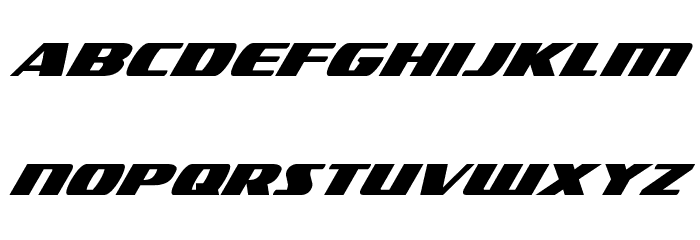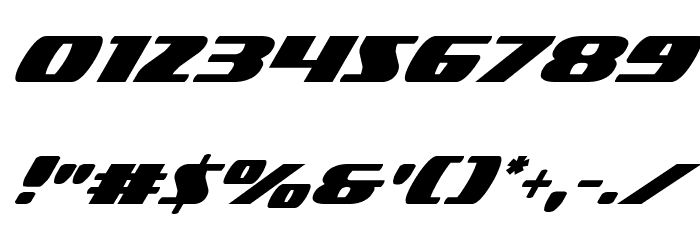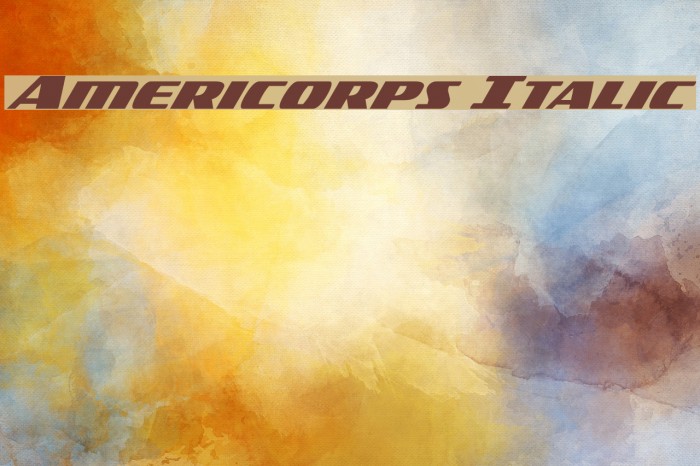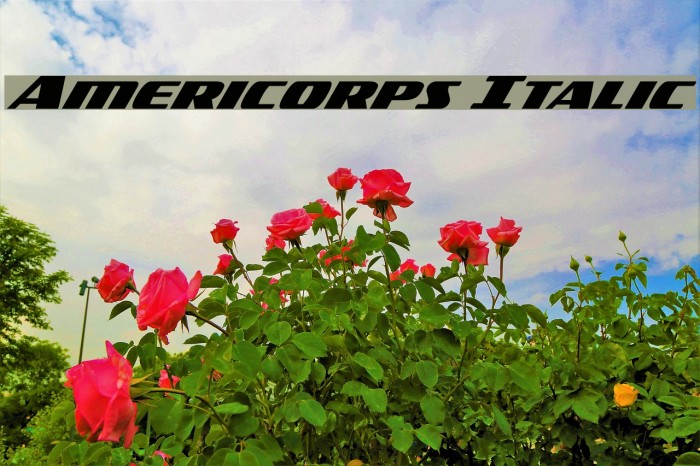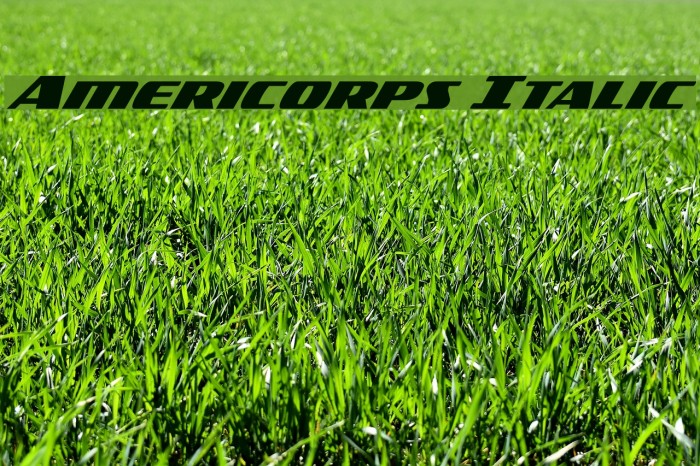
Americorps Italic Font
This font exhibits a bold, italicized style with a strong, dynamic presence. The characters are slanted, giving a sense of motion and energy. The strokes are thick and consistent, contributing to a robust and impactful appearance. The uppercase and lowercase letters maintain a uniform slant, enhancing the cohesive look. The numbers and special characters follow the same design principles, ensuring a harmonious overall aesthetic. This font is ideal for projects that require a bold and assertive typeface, capable of capturing attention and conveying a sense of urgency or modernity.
A bold, italicized font with a dynamic and energetic style.
- Font: Americorps Italic
- Proposed Projects: Ideal for sports branding, dynamic posters, modern advertisements, and eye-catching headlines.